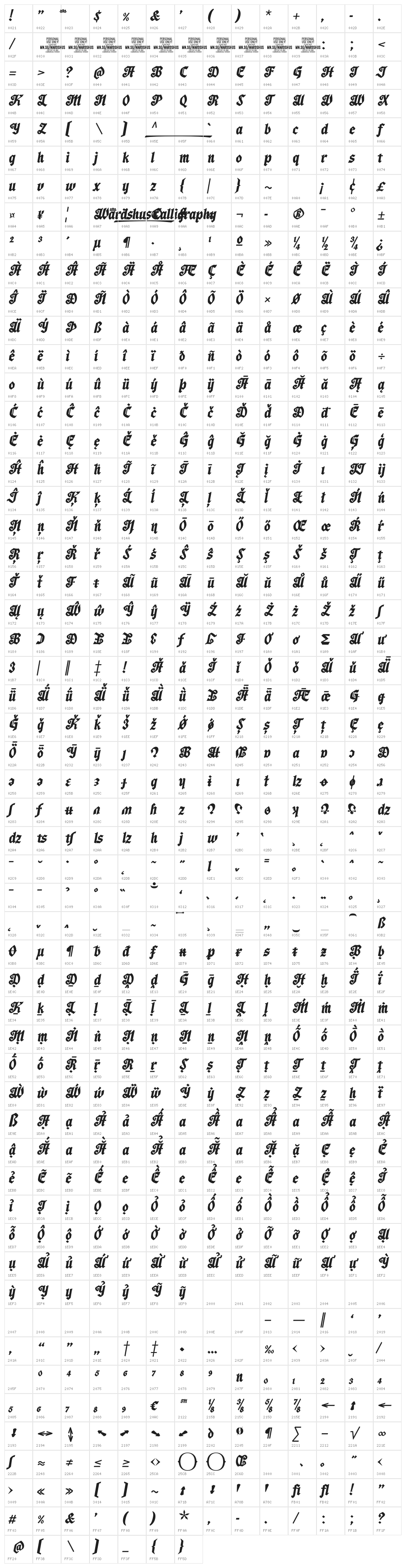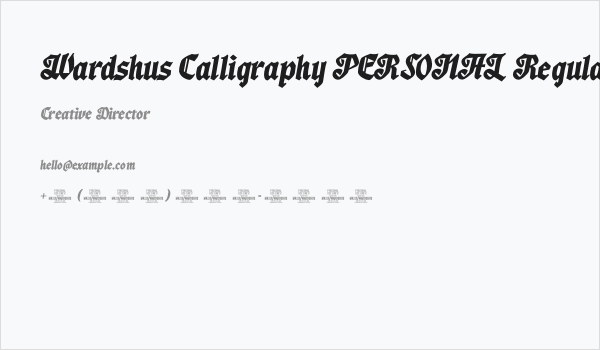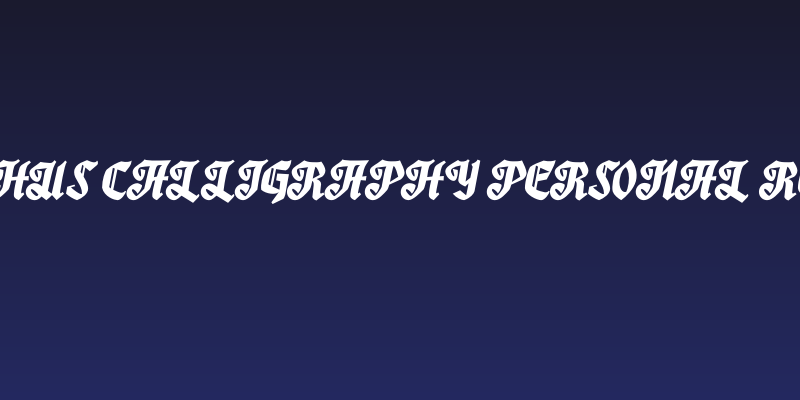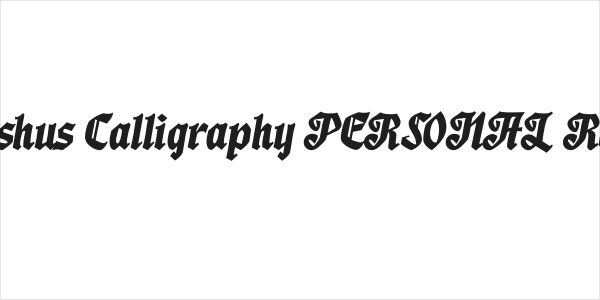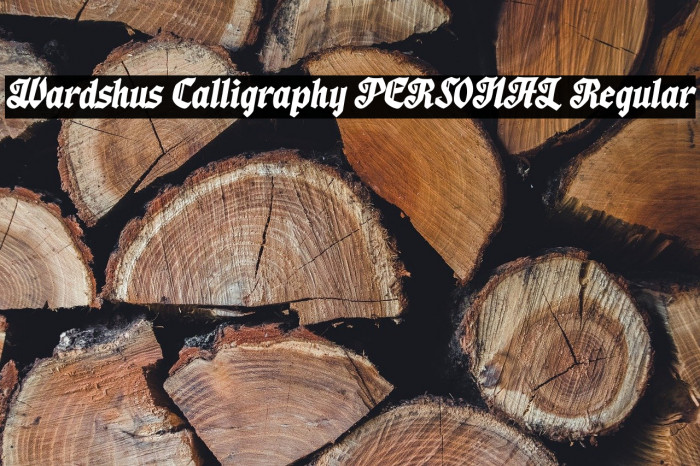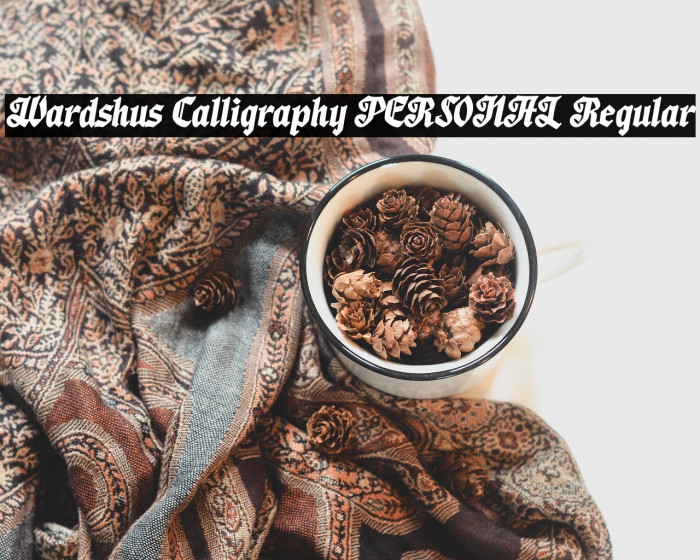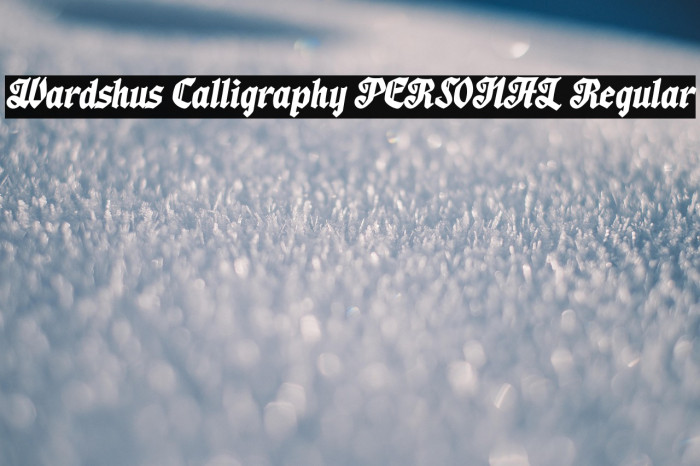
Wardshus Calligraphy PERSONAL Regular Font
Wardshus Calligraphy PERSONAL Regular Description
This font features a bold and intricate calligraphic style, reminiscent of traditional blackletter scripts. The characters are elaborately designed with sharp angles and flowing curves, giving it a distinct medieval and gothic appearance. The uppercase letters are particularly ornate, with exaggerated serifs and flourishes that enhance its decorative nature. The lowercase letters maintain the same level of detail, ensuring consistency throughout the typeface. The numerals and special characters are equally stylized, making this font suitable for projects that require a dramatic and historical aesthetic.
| Overall Style | Vintage |
| Use Case | Logos, Headlines, Decorative text |
| Proposed Projects | Ideal for use in historical-themed designs, invitations, posters, and branding that require a dramatic and classic touch. |